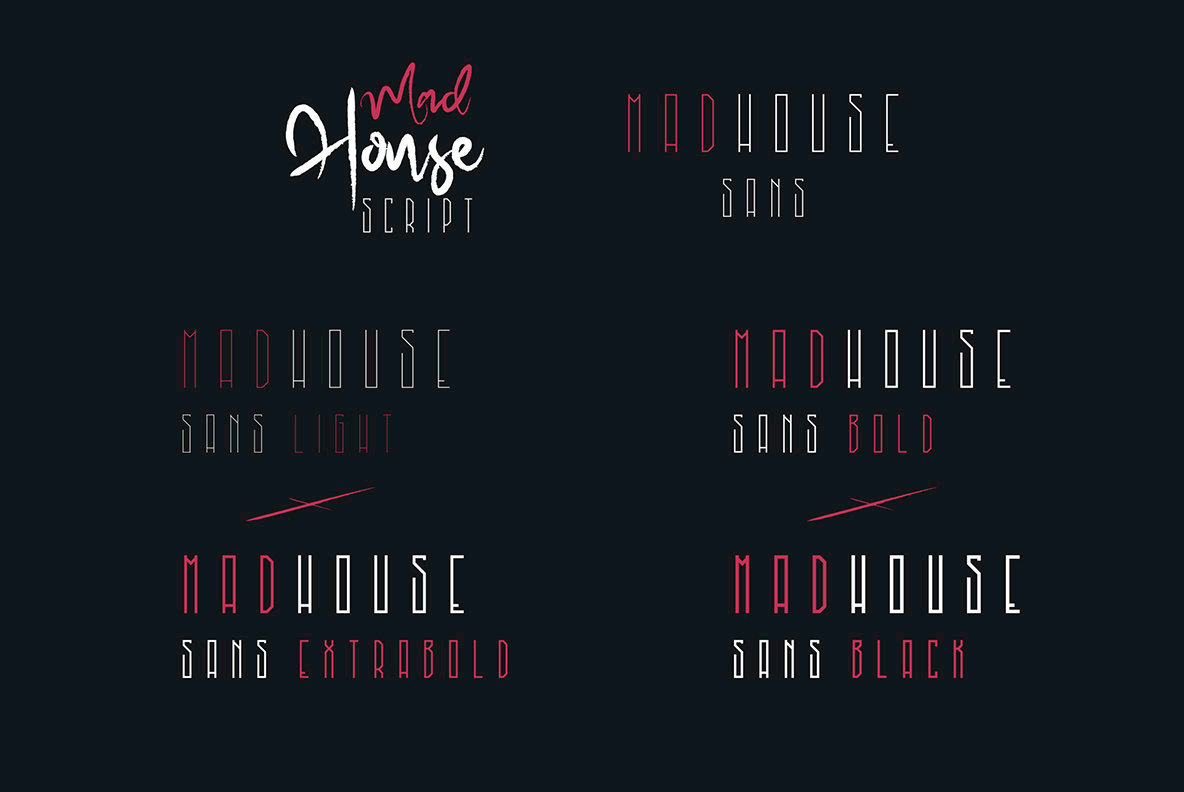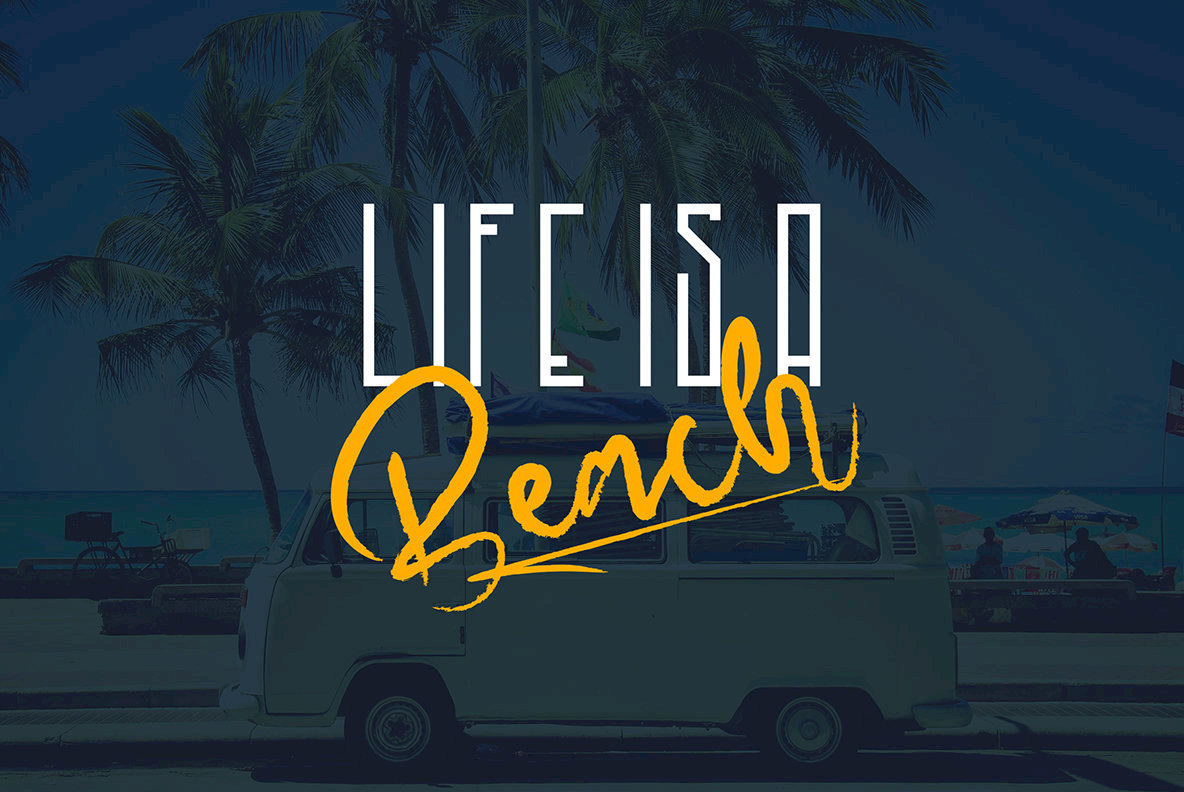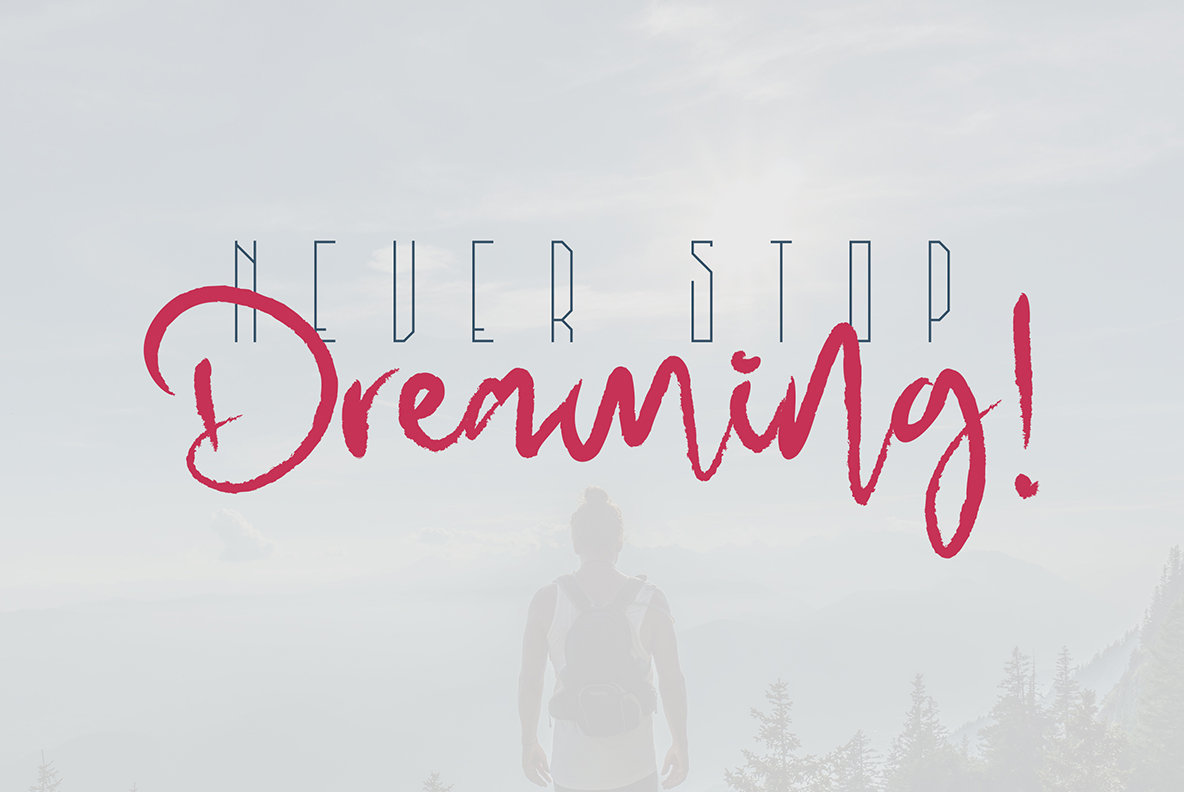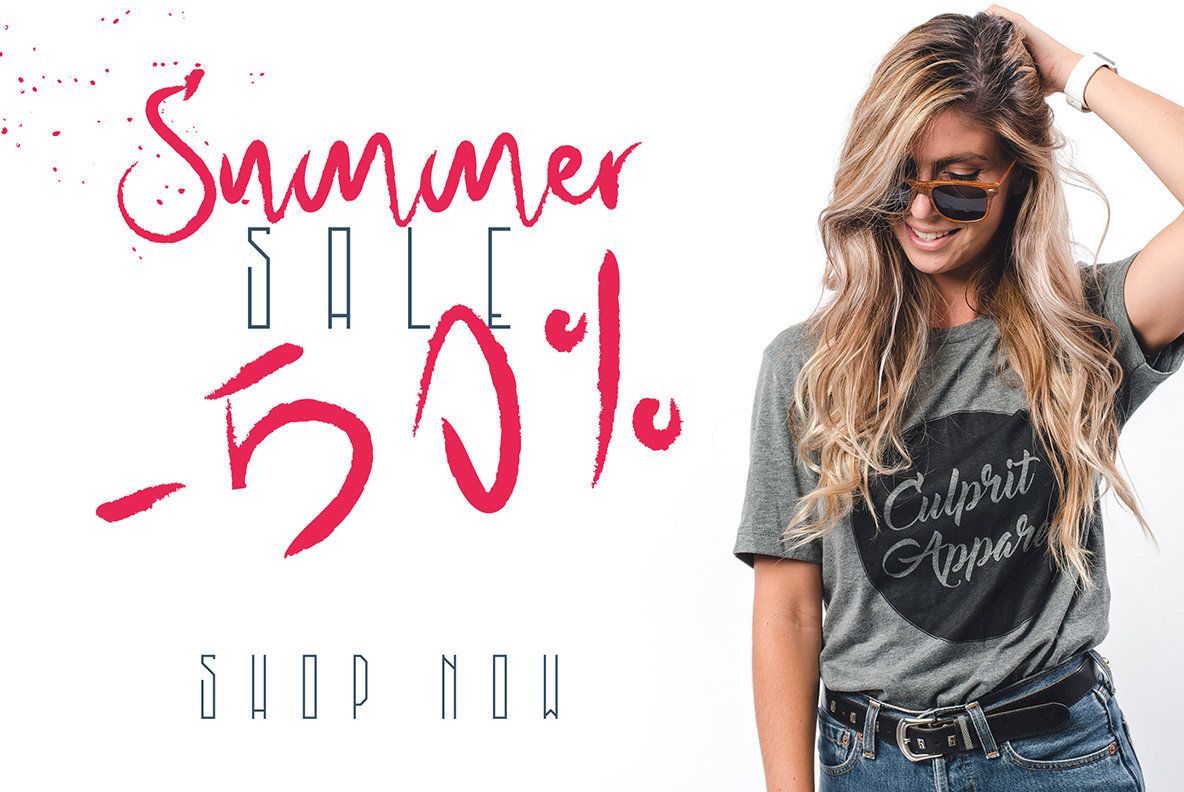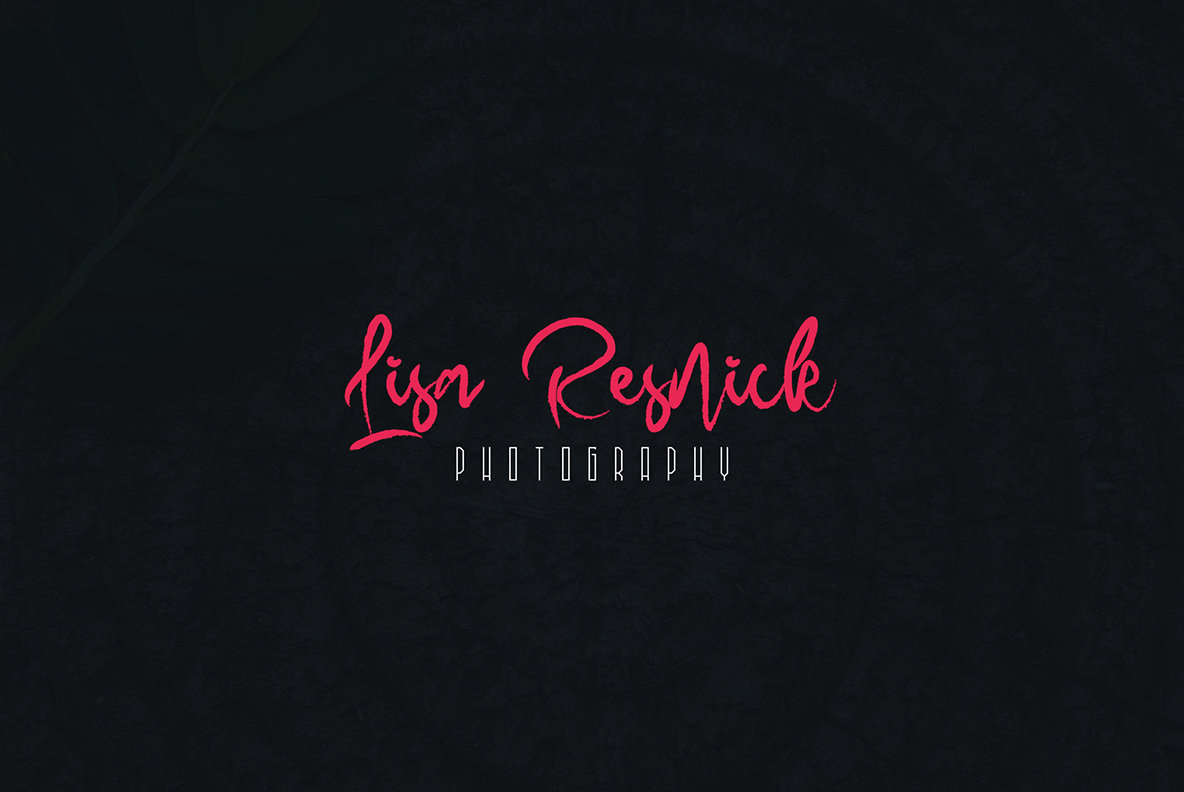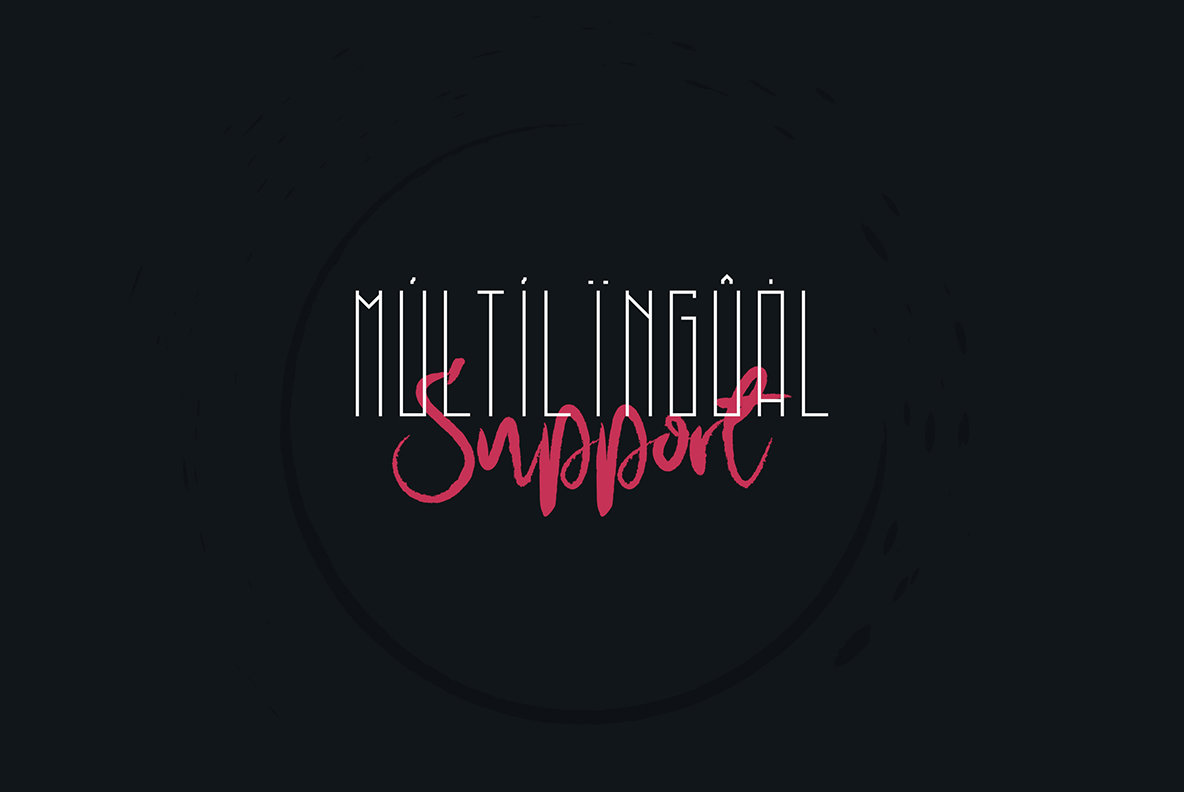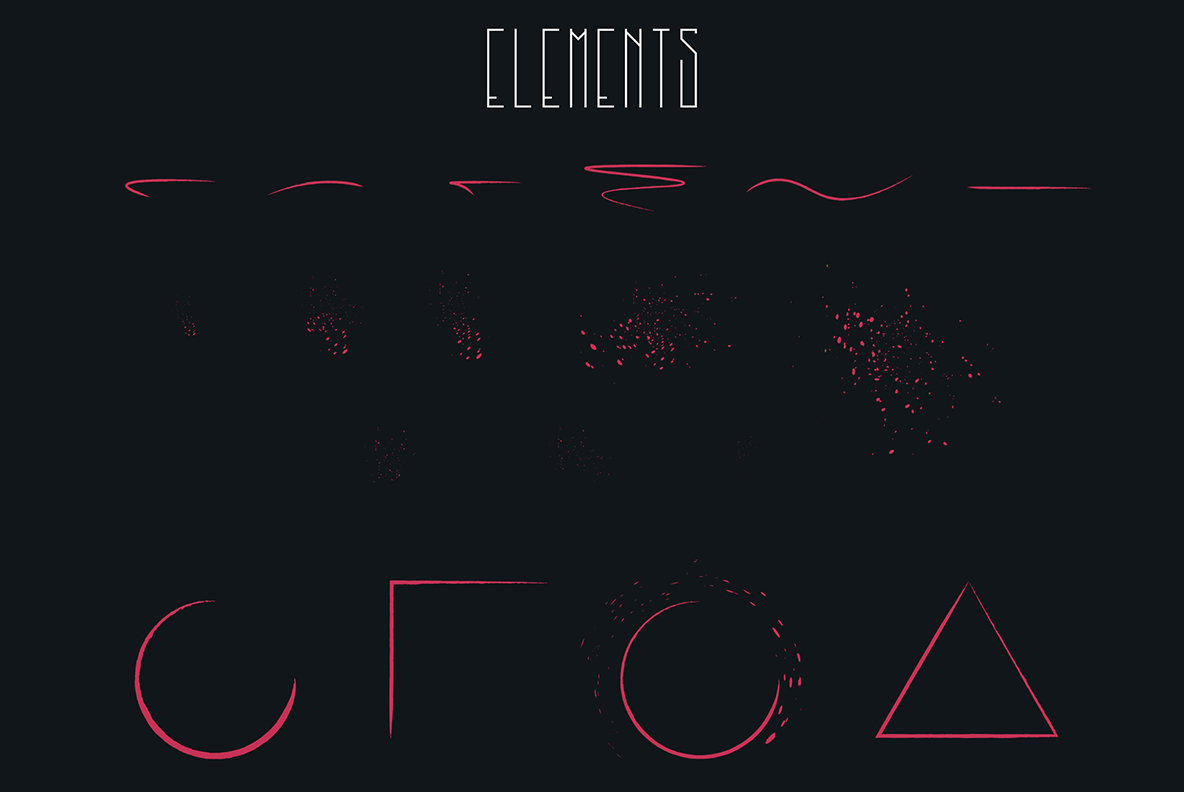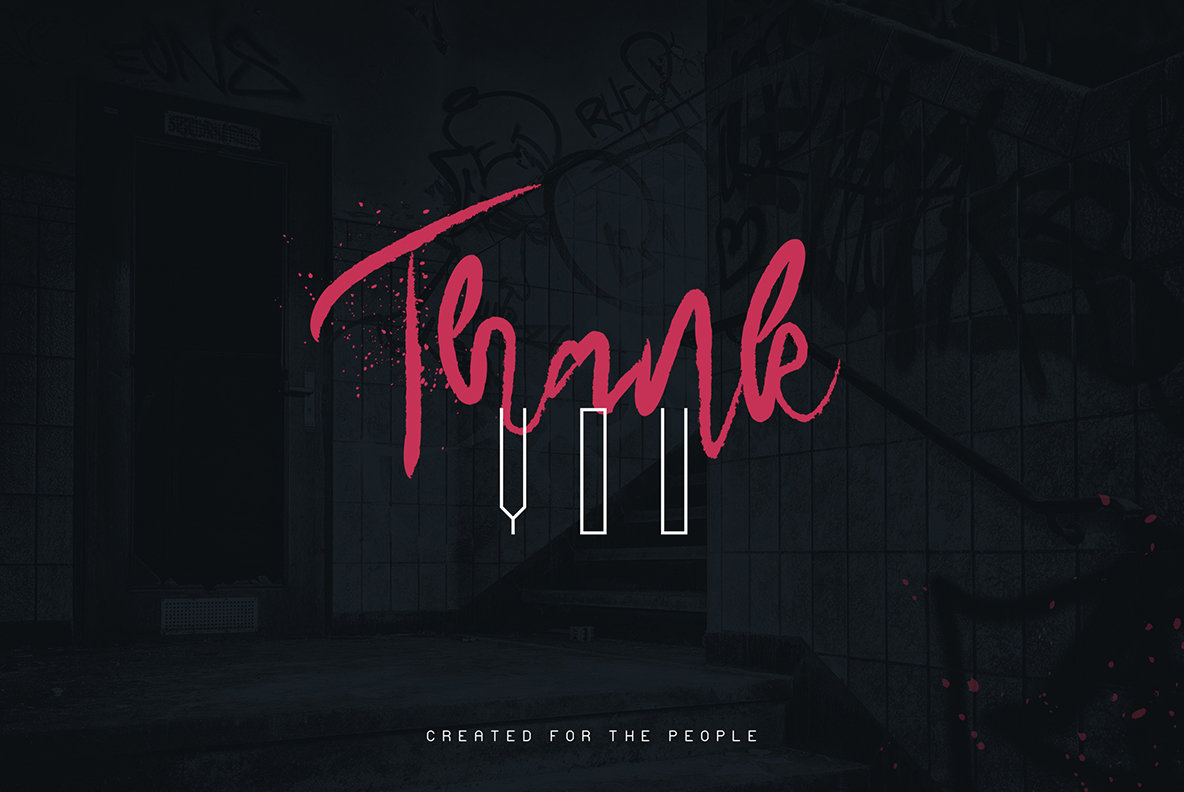
Madhouse Font Duo
The Madhouse Font Duo offers a sleek sans-serif combined with a cursive script, providing versatile solutions for your design projects. Available in five distinct weights, this typeface is expertly crafted to maintain clarity in both large and small scales, making it ideal for various branding and graphic endeavors. Whether you're designing for print or digital platforms, the Madhouse Font Duo is crafted to elevate your projects with sophistication and versatility.Madhouse Font Duo: A Dynamic Typeface for Diverse Design Needs